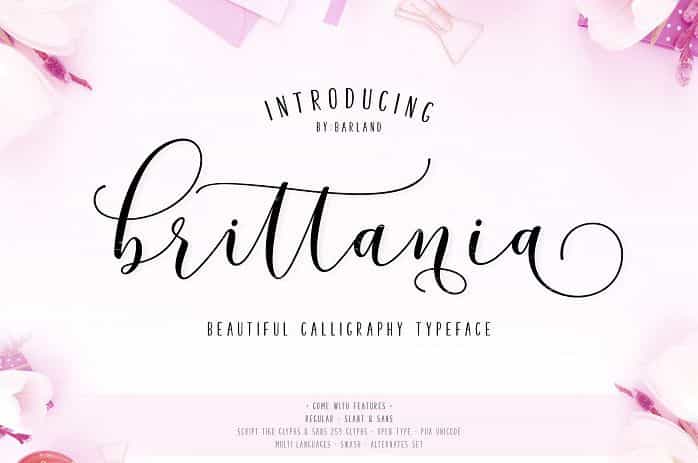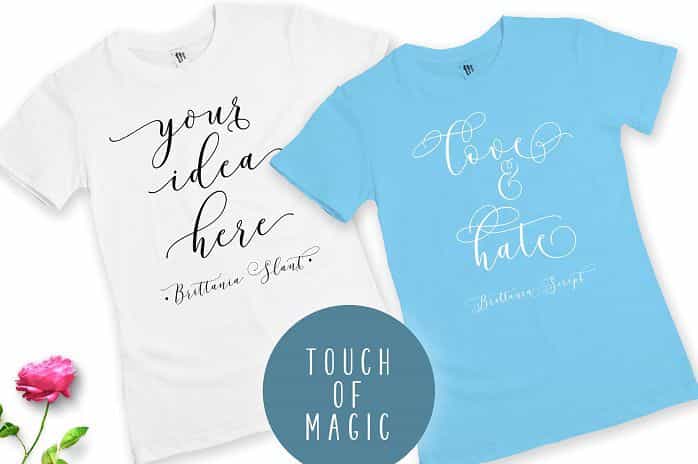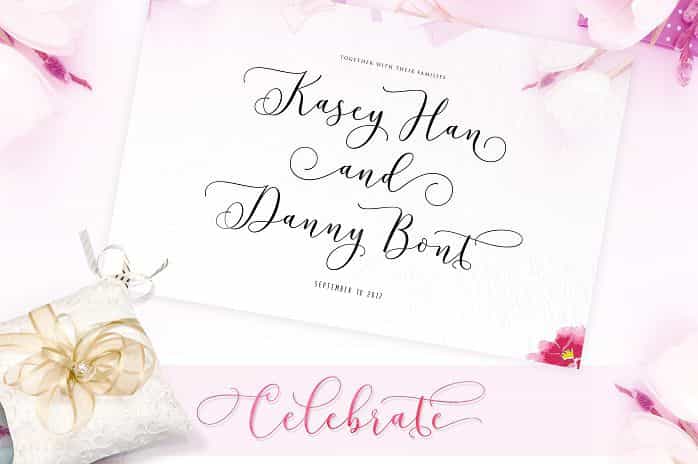
Introducing Brittania Font. Brittania is the modern script font, every single letter has been precisely designed to make your text look beautiful. With modern script style this font will perfect for many different project ex: quotation, blog heading, poster, wedding invitation card design branding fashion designer outfit.